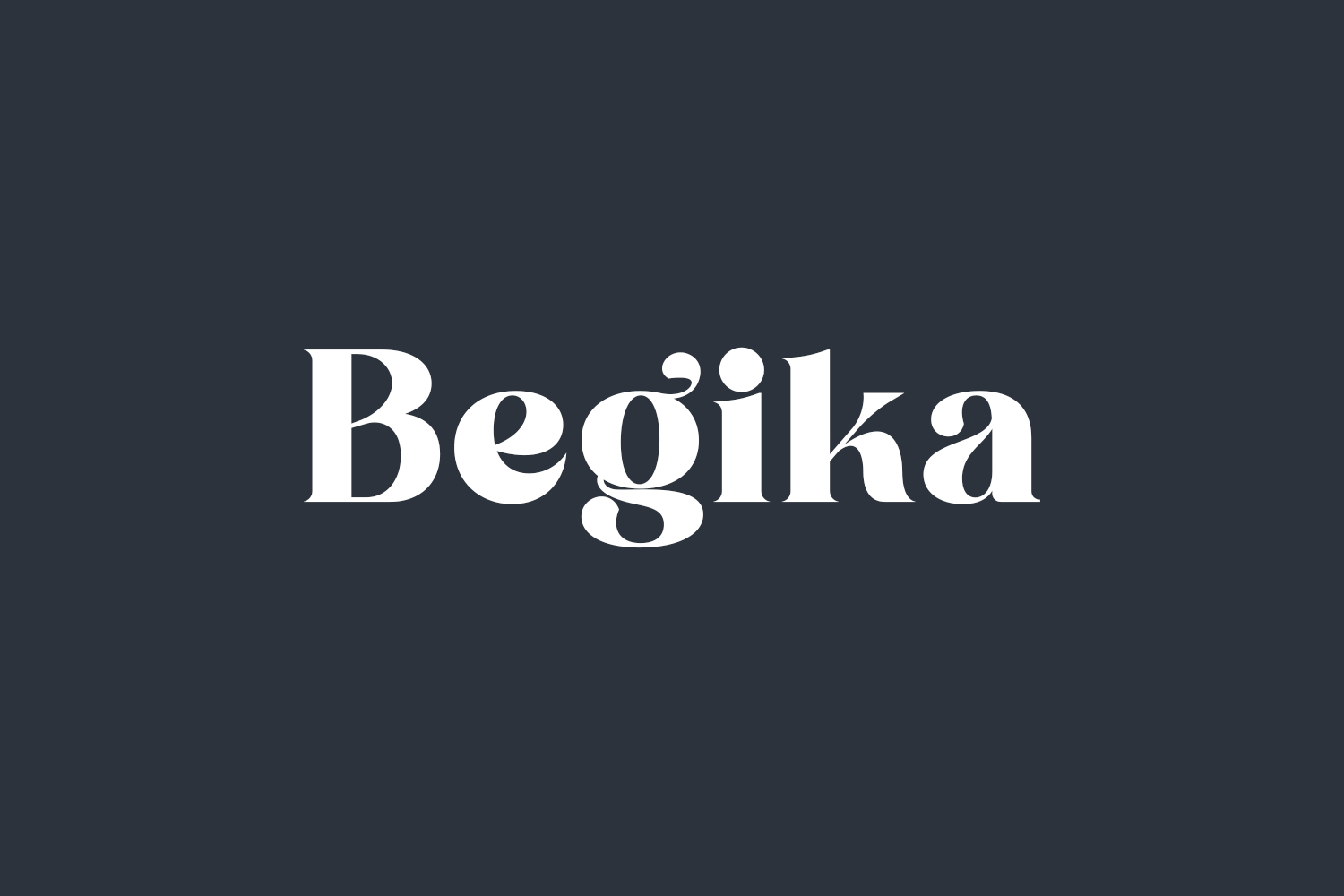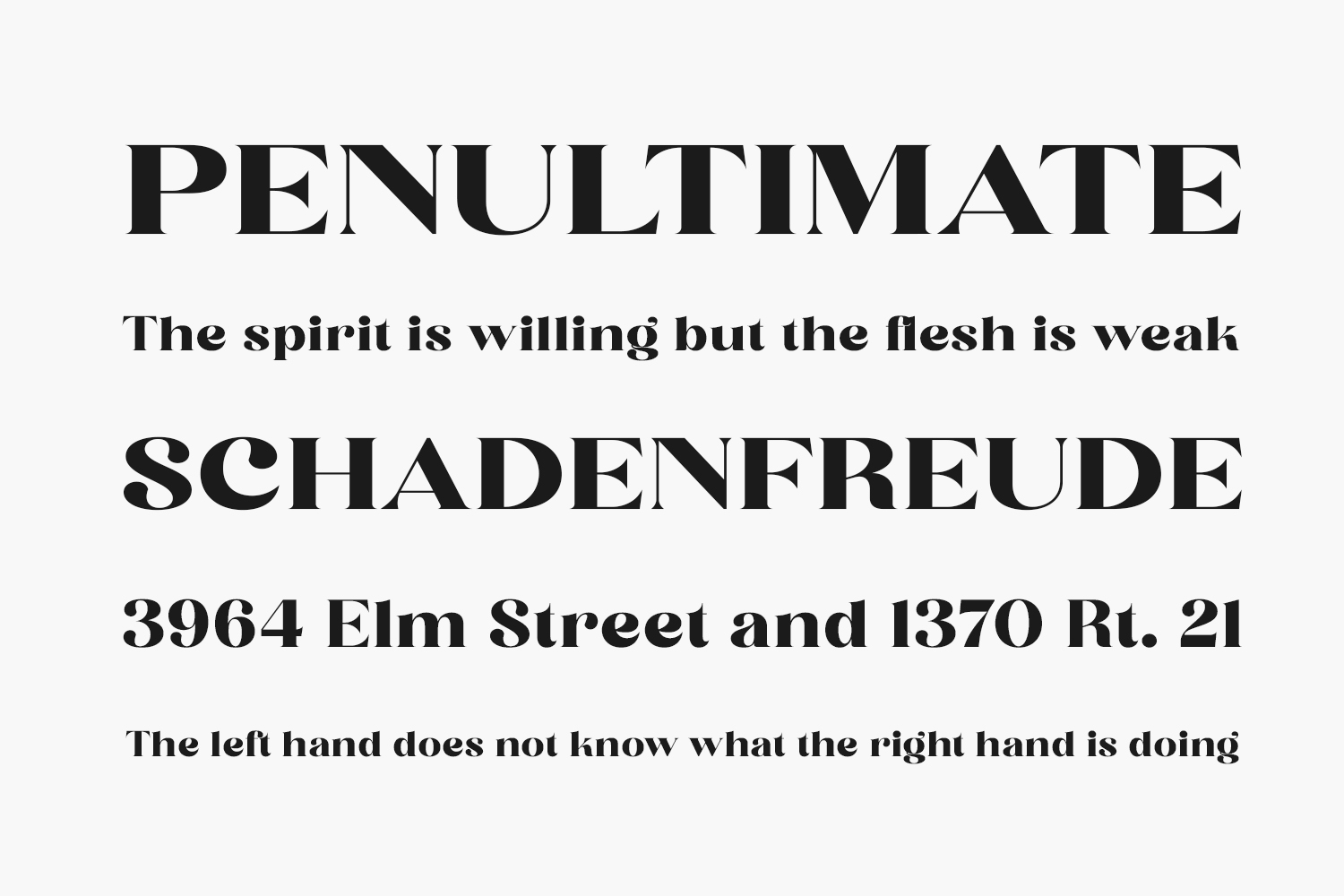
Begika Free Font Family is a bold, elegant, and thick lettered serif font. Begika Free Font Family was designed by Perspectype Studio and is free for personal use only. Please purchase the full version for commercial use.
Designed by Perspectype Studio
Begika Regular The quick brown fox jumps over the lazy dog
Begika Italic The quick brown fox jumps over the lazy dog
Begika Outline The quick brown fox jumps over the lazy dog
Begika Outline Italic The quick brown fox jumps over the lazy dog